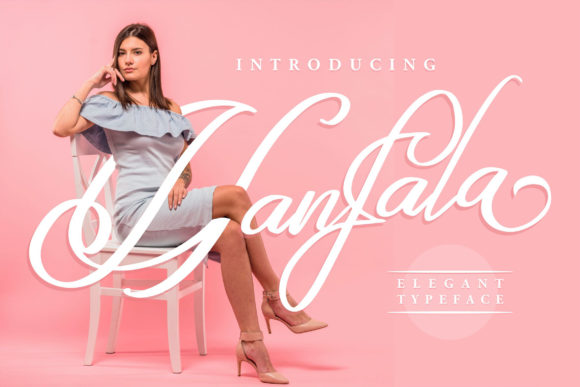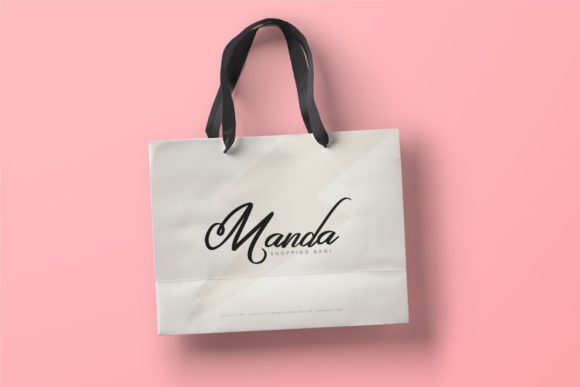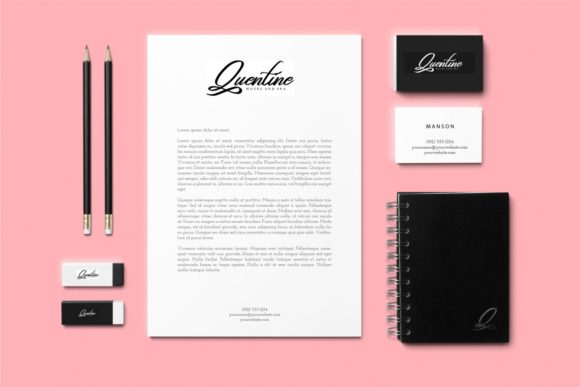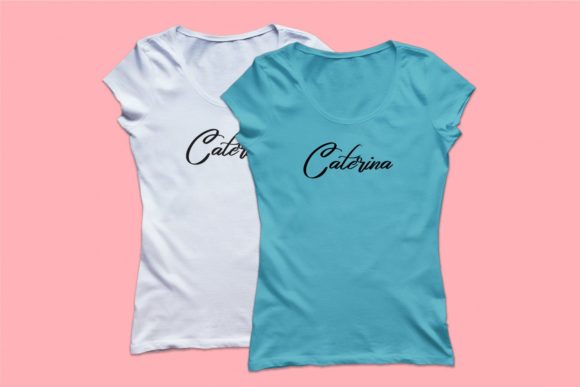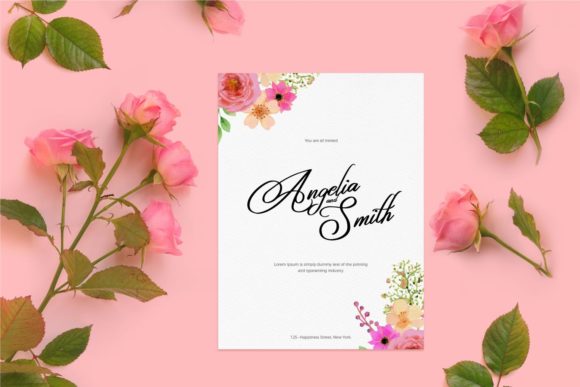
Hafala Font
About Hafala Font
Hafala is an elegant and modern script font with a friendly style. It will add a romantic touch to any crafting project!